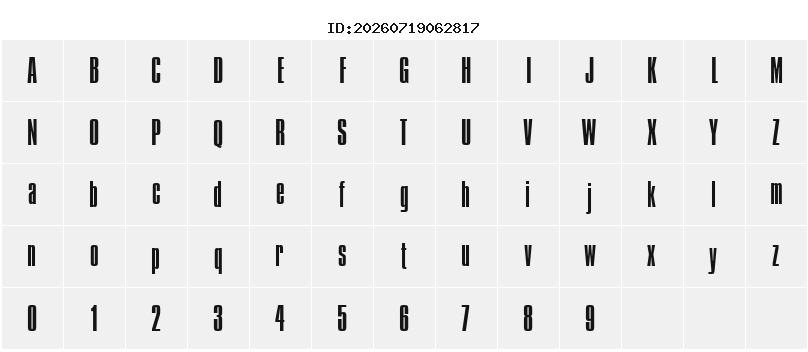
Compacta Lt BT Preview
• Font Name: Compacta Lt BT
• Font Style: Light
• Font ID: Compacta Light, Swiss 930
• Full Font Name: Compacta Light BT
• Version: mfgpctt-v1.52 Wednesday, January 27, 1993 10:36:11 am (EST)
• PostScript Name: CompactaBT-Light
• Character Count: 283
About Compacta Lt BT.ttf
Compacta Lt BT.ttf is a modern, elegant sans-serif font designed for ultimate readability and visual harmony. Perfect for branding, headlines, web design, and print materials.